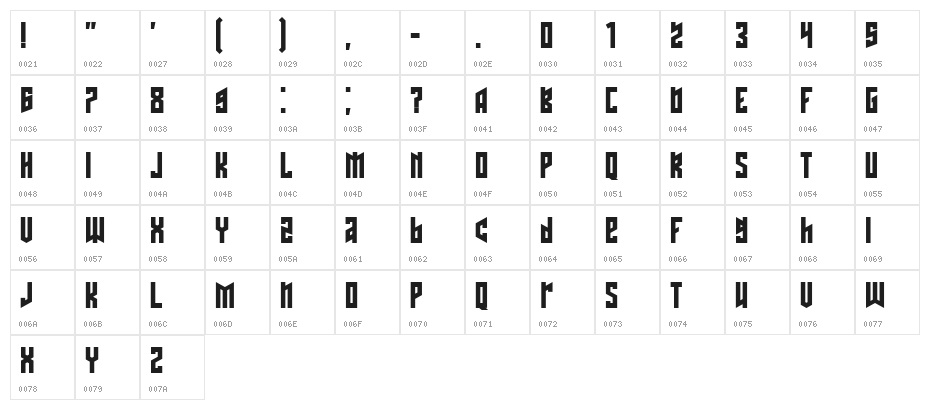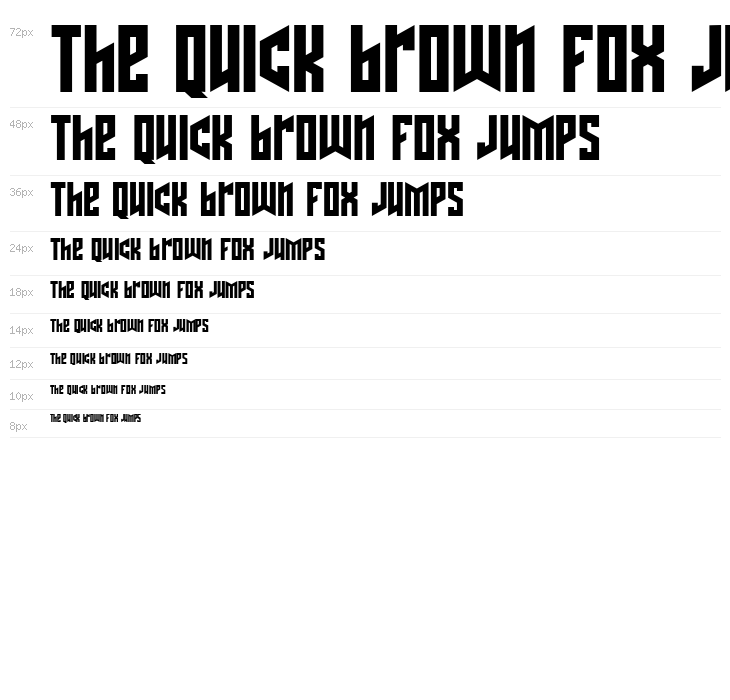
Schwachsinn Regular Font
Schwachsinn Regular Description
This font features a bold, geometric style with sharp angles and a strong presence. The uppercase and lowercase letters maintain a consistent height, giving it a uniform appearance. The characters are designed with a modern, edgy aesthetic, making them stand out with their block-like structure. The numerals and special characters follow the same design principles, ensuring cohesion throughout the font. Its unique style is reminiscent of futuristic or industrial themes, making it suitable for projects that require a bold statement.